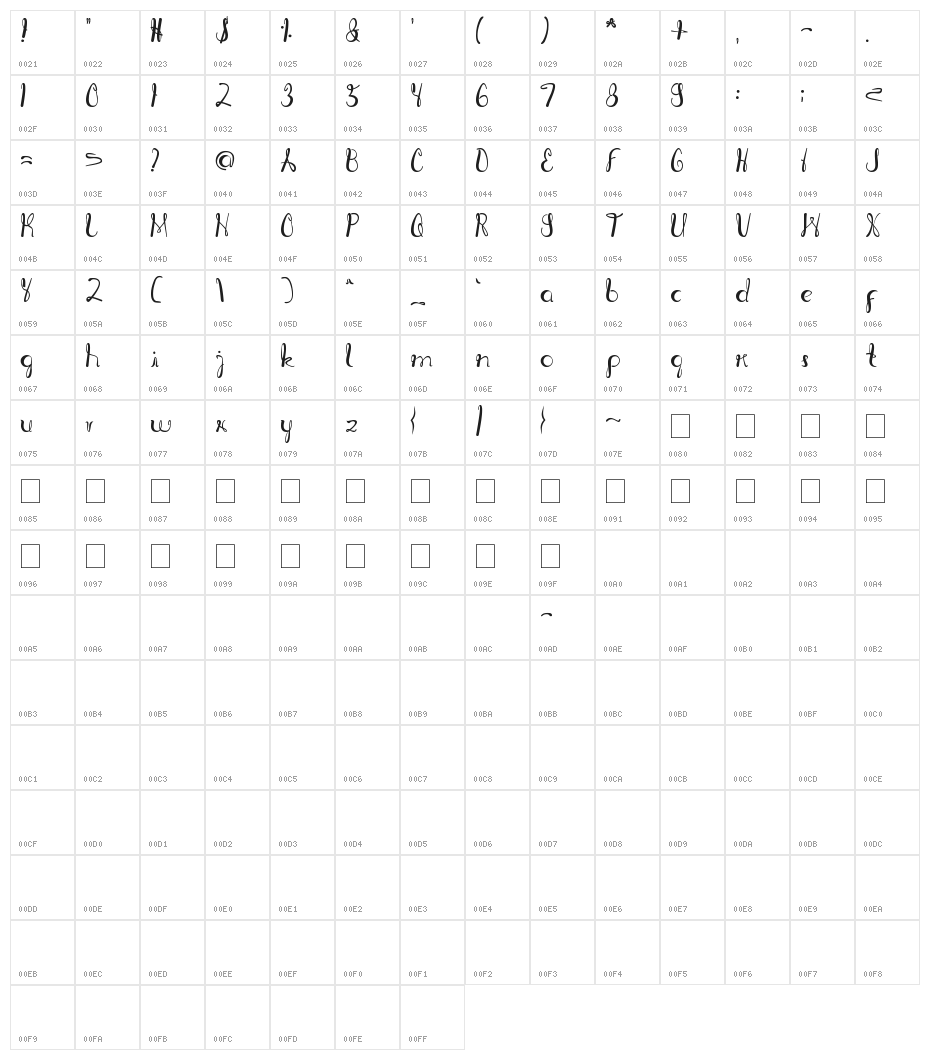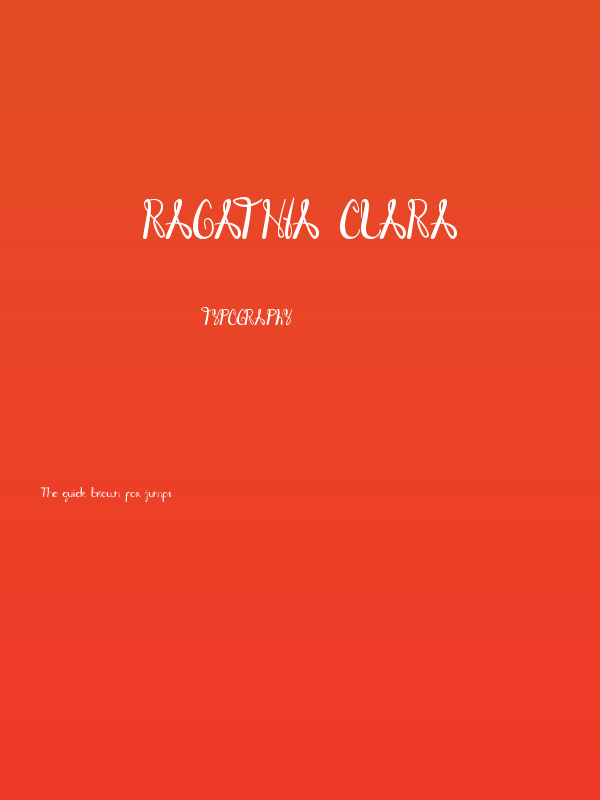
Ragatnia Clara Font
Ragatnia Clara Description
This font features a whimsical and flowing script style, characterized by its playful curves and loops. The uppercase letters are tall and slender, with a distinctive flair that adds a touch of elegance. The lowercase letters maintain a consistent flow, with some characters extending below the baseline, enhancing its dynamic appearance. The numerals are uniquely styled, maintaining the font's overall fluidity. Special characters are creatively integrated, adding to the font's decorative appeal. This font is ideal for projects that require a personal and artistic touch, such as invitations, greeting cards, and creative branding.
| Proposed Projects | Ideal for invitations, greeting cards, creative branding, and artistic projects. |